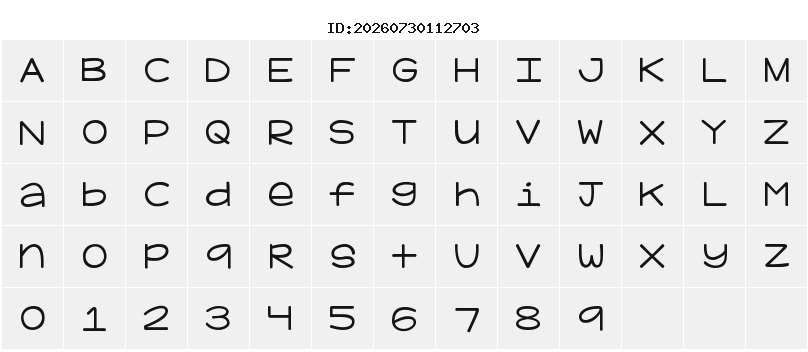
KG Adipose Unicase Preview
• Font Name: KG Adipose Unicase
• Full Font Name: KG Adipose Unicase
• Designer: Kimberly Geswein
• Manufacturer: Kimberly Geswein
About KG Adipose Unicase.ttf
KG Adipose Unicase.ttf is a modern, elegant sans-serif font designed for ultimate readability and visual harmony. Perfect for branding, headlines, web design, and print materials.